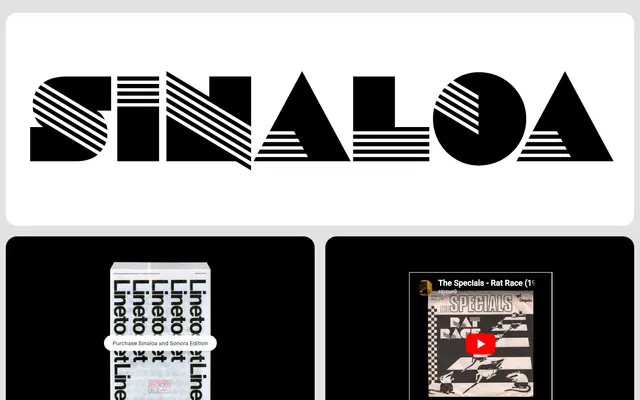
LL Sinaloa
Lineto · Rosmarie Tissi, Céline Odermatt · 2024
A fully authorised digital revival of Rosmarie Tissi's 1974 Letraset alphabet, characterised by parallel-line letterforms and open counters that broke decisively from Swiss Style convention.
Originally drawn by Tissi in 1972 and first published through Letraset's Letragraphica collection in 1974, Sinaloa spent decades circulating in unauthorised digital versions until Tissi reclaimed her rights from Monotype and terminated those releases in 2020. The new version, prepared in collaboration with type designer Céline Odermatt, expands the original fifty-odd characters to over two hundred and includes remodelled diacritics, punctuation and optically adjusted stripes. Available both as a digital font and in a limited-edition dry-transfer sheet.
An experimental display alphabet built from parallel lines and open counters reminiscent of stencil letterforms, originally designed as a departure from Swiss Style conventions and not fitting any conventional serif or sans-serif classification.